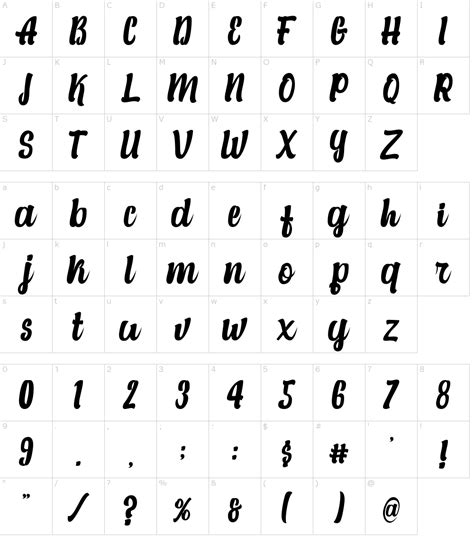
Julian Script Typeface Font : Signblazer Font List - General discussion - USCutter Forum / From ordinary stuff to masterpieces!. This font is ideal for many different projects, let's check it out and enjoy! Nov 3, 2017 by free fonts leave a comment. Say hello to julian free script typefaces! With beautifully crafted lettering, includes lowercase and uppercase letters, punctuation, and numerals. All letters, all numbers, all puntuations, lowercase and uppercase, all symbols.
It takes the viewer back to the flower power of the 1970s. Script font is a broad style that refers to any typeface that looks like it was drawn by hand. Some scripts are more formal like elegant calligraphy, while others are casual like cursive handwriting. Nov 3, 2017 by free fonts leave a comment. In order to set a different font typeface to some portion of text, a custom typefacespan can be used, as shown in the following example
Some scripts are more formal like elegant calligraphy, while others are casual like cursive handwriting. Another type is casual script writing, which tends to be less formal and looser and has wider strokes. The best selection of script fonts for windows and macintosh. Nov 3, 2017 by free fonts leave a comment. We invite you to discover a tender, yet so ecstatic typeface, bringing some light aura of aerial watercolors. 1956) in his weight distribution, and to. With beautifully crafted lettering, includes lowercase and uppercase letters, punctuation, and numerals. Script font is a broad style that refers to any typeface that looks like it was drawn by hand.
All letters, all numbers, all puntuations, lowercase and uppercase, all symbols.
From ordinary stuff to masterpieces! Julianne is a script typeface. The font can also be changed for a specific element in the. The sacramento typeface is monoline script inspired by hand lettering work in brochures from the 50s and 60s. Sep 25, 2017 fonts 475 0.
Overview julia script is a playful calligraphic font designed by david harris in 1983. The amazing thing about this script font is that you can have it for free from right here for your personal use. Sep 25, 2017 fonts 475 0. Browse by alphabetical listing, by style, by author or by popularity. Home › fonts › julian script typeface. Script font is a broad style that refers to any typeface that looks like it was drawn by hand. Public customtypefacespan(string family, typeface type) {. This font supports english, spanish, portuguese, italian, germany, french, and polish.
It includes all letters, all numbers, all punctuations, lowercase and uppercase, and all symbols. Nov 3, 2017 by free fonts leave a comment. For example, the logo of famous tv series american idol uses a modified typeface called kaufman as their logo, which is a script font of casual style. Another type is casual script writing, which tends to be less formal and looser and has wider strokes. Public customtypefacespan(string family, typeface type) {. Some scripts are more formal like elegant calligraphy, while others are casual like cursive handwriting. Demo donationware free free for personal use public domain, gpl, ofl shareware. Clean calligraphy in its best traditions with excellent swashes, complementing your composition. 1956) in his weight distribution, and to. Sep 25, 2017 fonts 475 0. We invite you to discover a tender, yet so ecstatic typeface, bringing some light aura of aerial watercolors. With people using the word typeface to mean font and. Say hello to julian free script typefaces!
All letters, all numbers, all puntuations, lowercase and uppercase, all symbols. Say hello to julian free script typefaces! Demo donationware free free for personal use public domain, gpl, ofl shareware. Lm roman, lm sans serif, lm typewriter, lm dunhill post script fonts: The sacramento typeface is monoline script inspired by hand lettering work in brochures from the 50s and 60s. Times, utopia/fourier, palatino, bookman, helvetica, courier It includes all letters, all numbers, all punctuations, lowercase and uppercase, and all symbols. Another type is casual script writing, which tends to be less formal and looser and has wider strokes.
For example, the logo of famous tv series american idol uses a modified typeface called kaufman as their logo, which is a script font of casual style.
Archive of freely downloadable fonts. The sacramento typeface is monoline script inspired by hand lettering work in brochures from the 50s and 60s. Beautifully crafted lettering is gonna complement your artwork with an artistic touch, luckily it contains everything you may need for that. Overview julia script is a playful calligraphic font designed by david harris in 1983. All your font needs all your design needs website themes and more. With people using the word typeface to mean font and. It takes the viewer back to the flower power of the 1970s. This font is ideal for many different projects, let's check it out and enjoy! Nov 3, 2017 by free fonts leave a comment. Beautifully crafted lettering is gonna complement your artwork with an artistic touch. Julianne is a script typeface. We invite you to discover a tender, yet so ecstatic script typeface, bringing some light aura of bloomy aerial watercolors. We invite you to discover a tender, yet so ecstatic typeface, bringing some light aura of aerial watercolors.